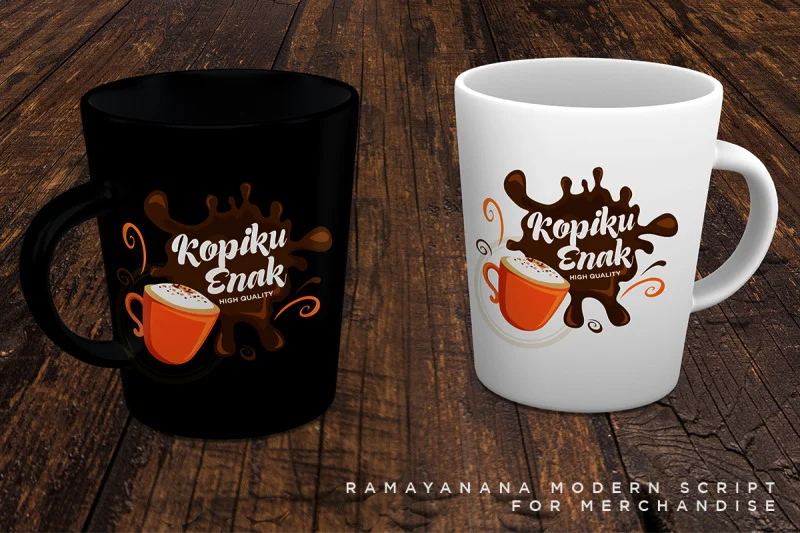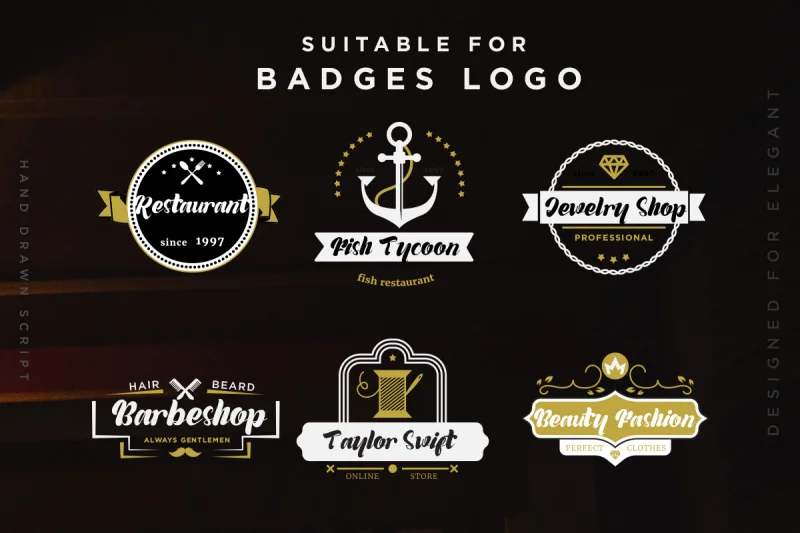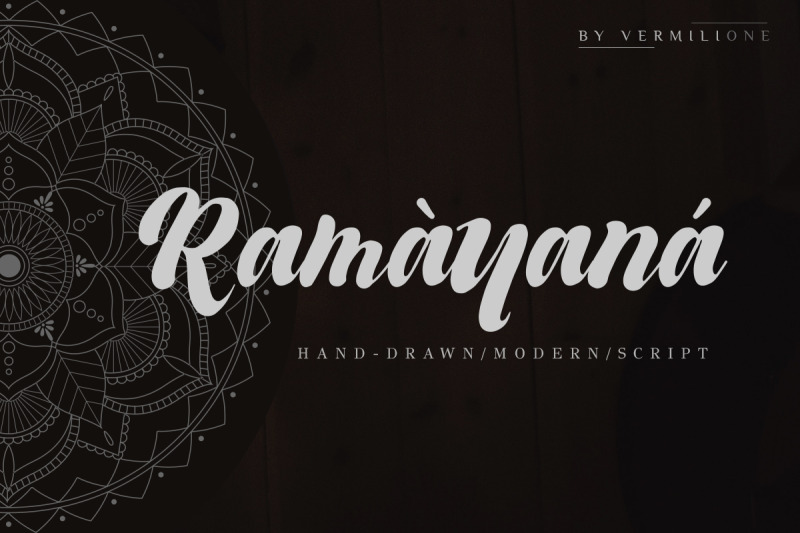
Ramayana Hand Drawn Modern Script Font
Ramayana Hand Drawn Modern Script Font is perfect for bohemian branding, artistic wedding invitations, creative book covers, indie fashion labels, handcrafted product packaging, artistic social media graphics, unique greeting cards, cultural event materials, artistic portfolios, and authentic lifestyle branding.
What makes Ramayana Hand Drawn Modern Script Font so exciting is its perfect blend of cultural inspiration and contemporary handcrafted aesthetics that creates a unique visual narrative. This captivating script typeface combines artistic tradition with modern creativity, delivering typography that tells stories and connects with audiences seeking authentic cultural expression.
The Ramayana Hand Drawn Modern Script Font family includes regular weight with extensive stylistic alternates, artistic flourishes, decorative swashes, and hand-drawn variations that provide designers with unlimited creative possibilities for personalized and culturally-inspired typography.
Discover cultural artistry with Ramayana Hand Drawn Modern Script Font, a beautifully crafted script typeface that brings the richness of cultural heritage to contemporary design projects. This exceptional font embodies the perfect fusion of traditional artistic inspiration and modern hand-lettered creativity, making it an ideal choice for brands that celebrate cultural authenticity and artistic expression.
The artistically flowing letterforms of Ramayana Hand Drawn Modern Script Font showcase authentic hand-drawn character with organic imperfections and cultural nuances that create genuine artistic appeal and cultural connection. Each character displays careful attention to maintaining the spiritual essence of traditional artistic traditions while ensuring contemporary readability and professional versatility. The font's expressive curves and cultural authenticity contribute to its unique character and memorable impact.
Cultural brands and artistic designers consistently choose Ramayana Hand Drawn Modern Script Font for projects requiring authentic cultural expression and artistic sophistication. The comprehensive character set includes uppercase and lowercase letters, numerals, extensive punctuation, international accents, and cultural decorative elements that provide complete support for culturally-inspired design applications and artistic compositions.
The cultural versatility of Ramayana Hand Drawn Modern Script Font ensures exceptional performance across both traditional print and modern digital platforms. Whether developing culturally-inspired brand identities, creating artistic wedding materials, or designing authentic cultural marketing campaigns, this remarkable typeface delivers consistent cultural authenticity that resonates with audiences appreciating artistic heritage.
Transform your cultural projects with Ramayana Hand Drawn Modern Script Font. This extraordinary script typeface brings authentic cultural artistry to typography, making it the essential choice for designers who create experiences that honor cultural traditions while embracing contemporary creative expression.